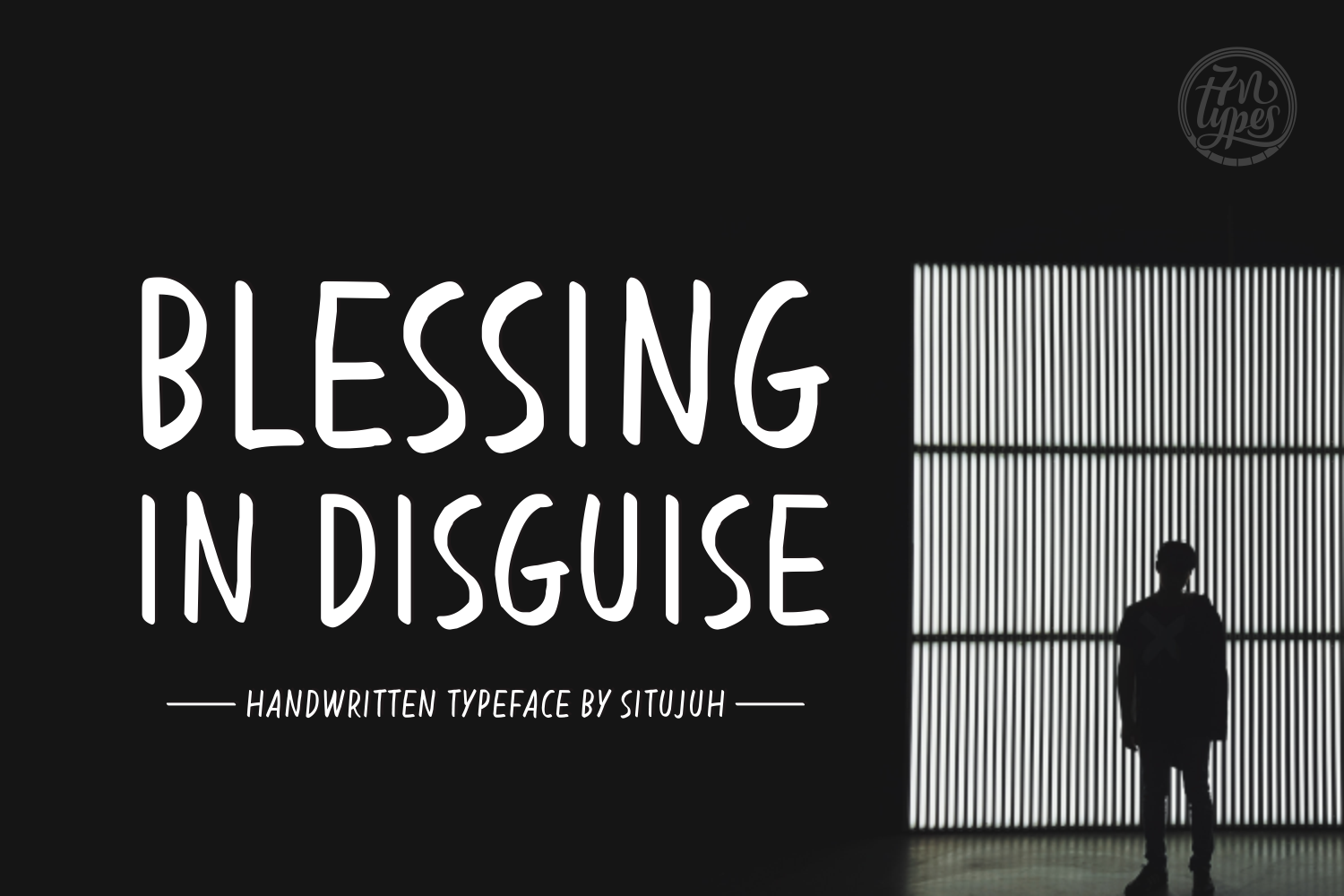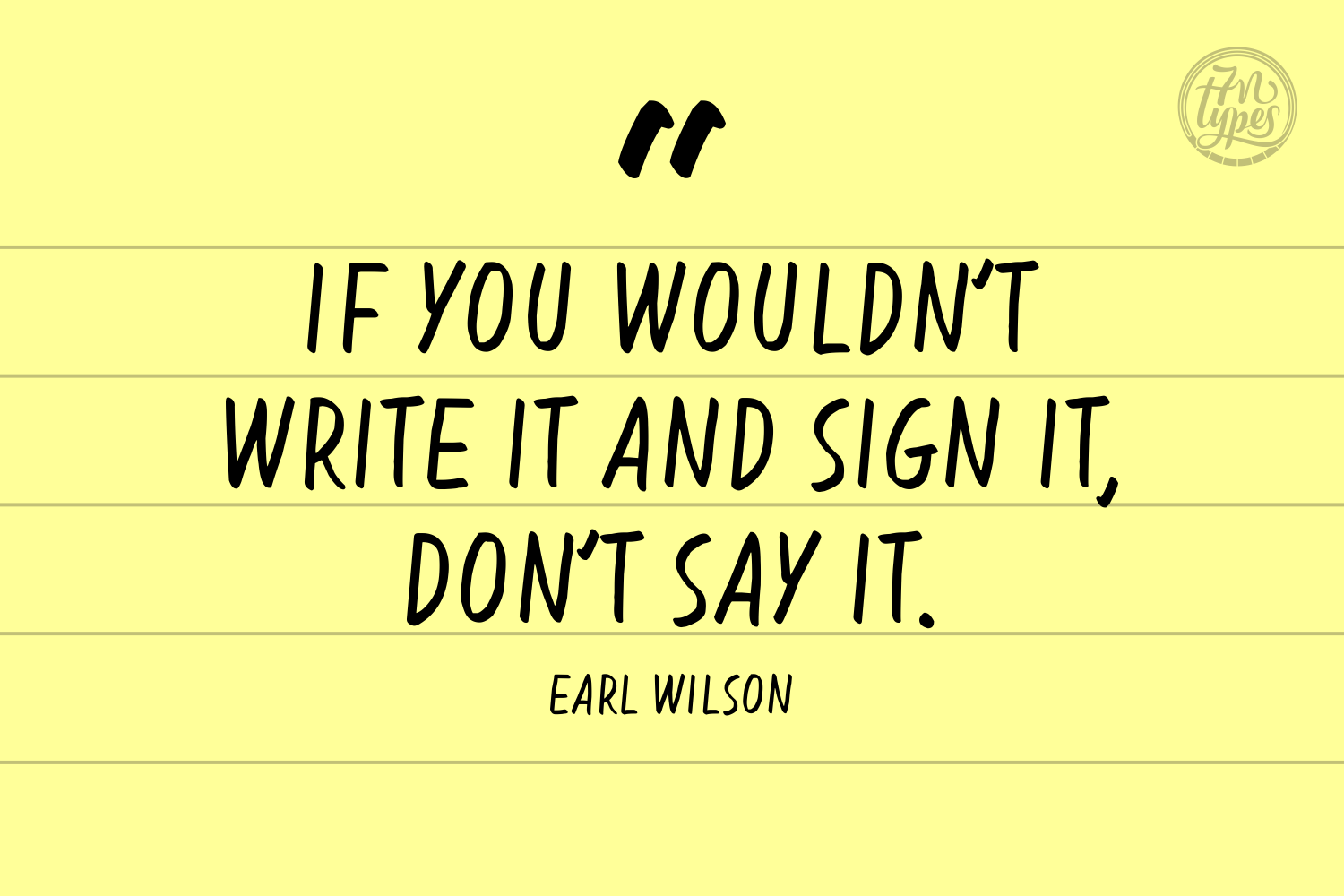
Blessing in Disguise Font
About Blessing in Disguise Font
Blessing in Disguise is a handwritten typeface that features bold lines that have a fluid thickness. Despite the variation in thickness, the font is solid.
It’s very legible, this combined with the playful look make it perfect for both display/headlines & body text.